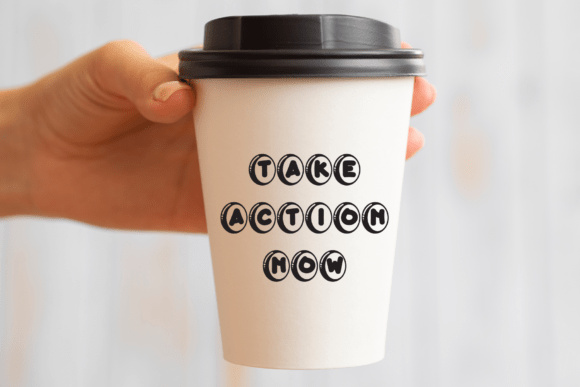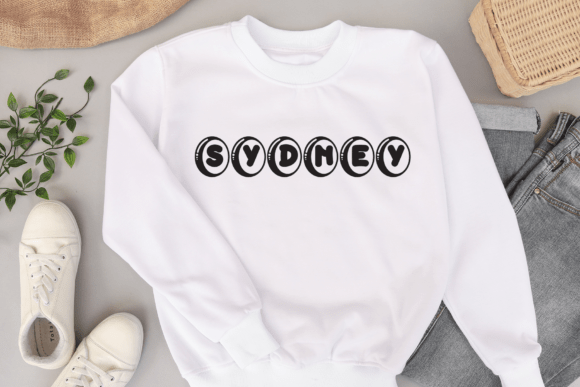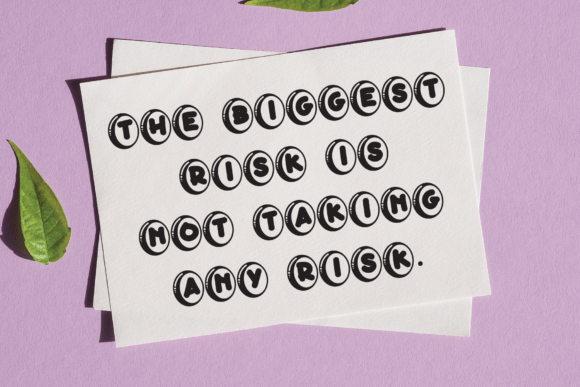
Introduction to Hey Santa Font
Hey Santa is a fun and unique display font.
Add it to your creative projects and you will love the results .
Key Features of Hey Santa Font
Why Choose Hey Santa Font?
Hey Santa Font offers exceptional quality and versatility, making it a valuable addition to your design toolkit. Whether you’re creating for personal projects or commercial use, Hey Santa Font delivers professional results.